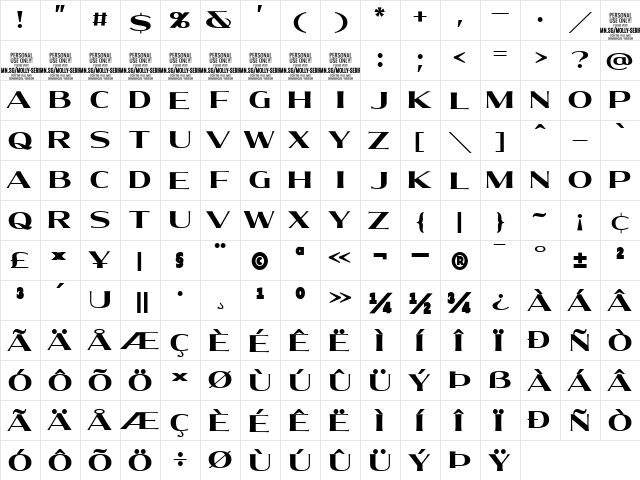
Molly Serif E PERSONAL Bold
| Foundry | Mans Greback |
| Designer | Mans Greback |
Design Context for Molly Serif E PERSONAL Typeface
Molly Serif E PERSONAL carries the refined structure of traditional serif typography, with bracketed terminals and considered proportions that communicate credibility and craft. The heavy weight commands attention and anchors typographic hierarchies.